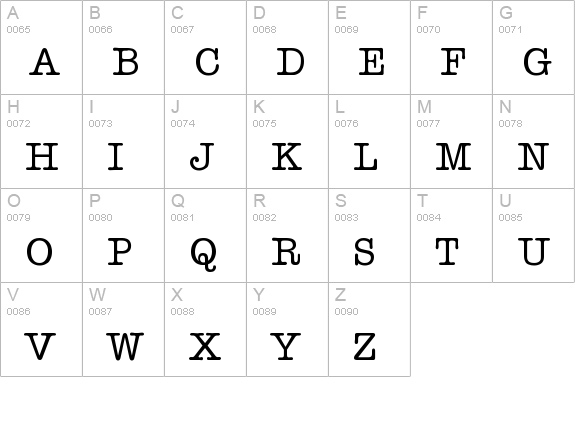
Headline Normal is the standard, neutral variant in the Headline typeface family \xE2\x80\x94 well suited to general body text, paragraphs, and standard typographic work.